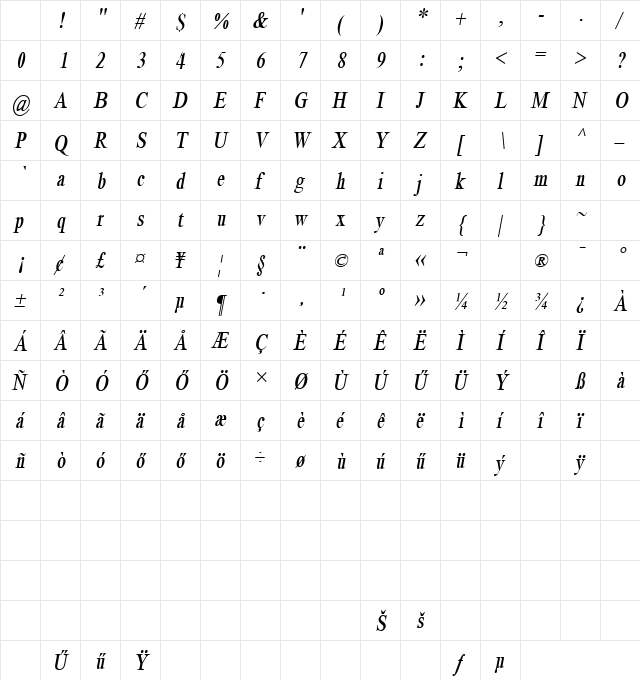
Complete Huni_TimesNueve Cn Oblique Regular glyph index. Displaying only characters natively supported by Huni_TimesNueve Cn Oblique Regular font.
Huni_TimesNueve Cn Oblique is a composed and adaptable typeface that performs quietly and consistently across a wide range of design contexts. The slanted form adds forward momentum and visual energy.
Pro Tip: Use Huni_TimesNueve Cn Oblique for emphasis, pull quotes, and subheadings where its slanted energy can add rhythm to the layout.